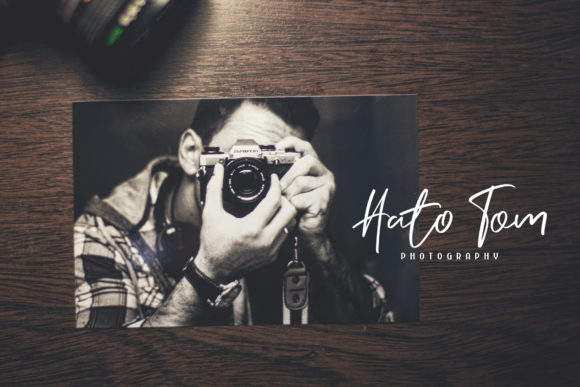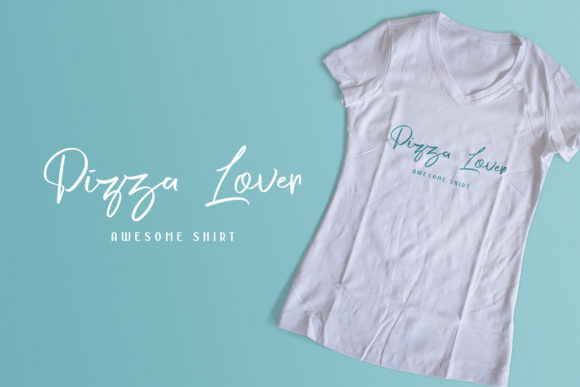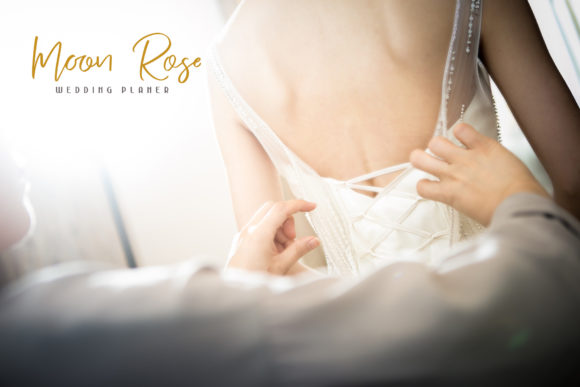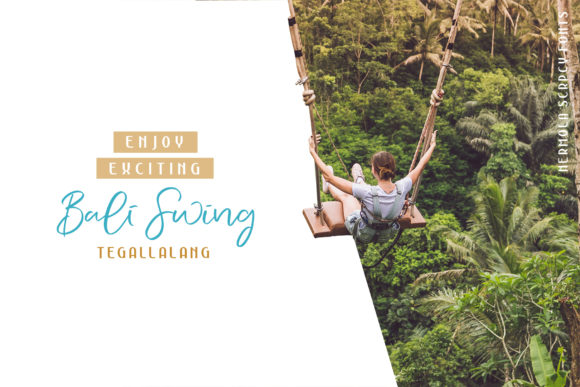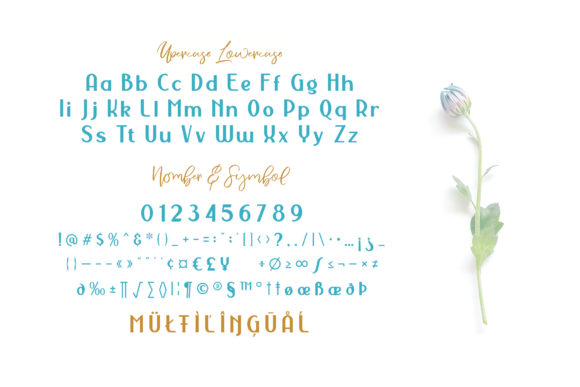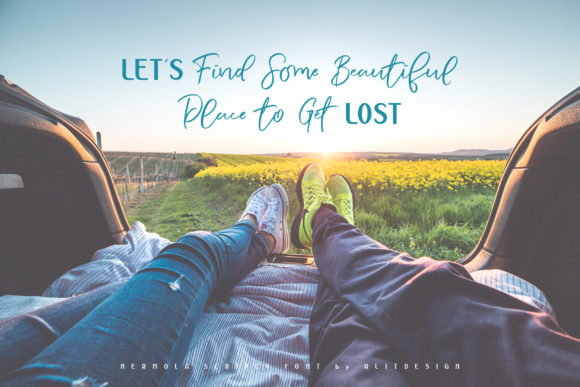
Introduction to Nermola Duo Font
Have you ever stared at a blank canvas, wondering where to begin a creative project? The blank page can be intimidating, but with the right design resources, the possibilities become endless. As a designer, you know the importance of having a versatile and high-quality font to elevate your work.
That’s where the Nermola Duo Font comes in – a stunning combination of an authentic script and modern sans serif font. This powerful duo is a game-changer for designers, offering a transparent background that allows your creativity to shine through. With the Nermola Duo Font, you can create stunning results that will leave a lasting impression.
What makes this font duo so valuable is its ability to add a touch of elegance and sophistication to any design project. Whether you’re working on a branding campaign, a website, or a social media post, the Nermola Duo Font is an excellent choice. And the best part? It’s available for free download, making it an accessible design resource for creatives of all levels.
Key Features of Nermola Duo Font
- Unique, hand-drawn design style with a minimalist approach, ideal for creative projects.
- Features a transparent background, making it easy to integrate with any design resource.
- Includes two font styles, Duo Regular and Duo Italic, providing a versatile option for designers.
Honest Review: Nermola Duo Font
I recently had the chance to work with the Nermola Duo Font, and I must say it’s a great addition to my design resource library. The font’s unique blend of modern and vintage elements makes it perfect for a creative project that requires a touch of elegance.
- ✨ High quality design that’s perfect for both digital and print media.
- ✨ Transparent background, making it easy to use in various design scenarios.
- ⚠️ Limited font styles and weights, which might limit its versatility in certain projects.
- ⚠️ Not ideal for projects that require a large amount of text, as the font can be a bit overwhelming when used extensively.
Overall, I’m quite impressed with the Nermola Duo Font. While it may not be the most versatile font out there, it’s a great choice for designers looking for a high-quality, elegant font for their creative project. With a little creativity, it can be used to great effect in various design scenarios.
Tips for Getting the Most Out of Nermola Duo Font
Use the Nermola Duo Font with a transparent background to create a clean and modern design. This font is perfect for creating a high-quality design resource for your creative project. You can download the font for free, making it an excellent choice for designers on a budget.
The Nermola Duo Font is ideal for creating titles, headings, and body text for various design projects. Its clean and modern design makes it perfect for use in logos, branding materials, and marketing materials. You can also use the font to create social media graphics, flyers, and brochures.